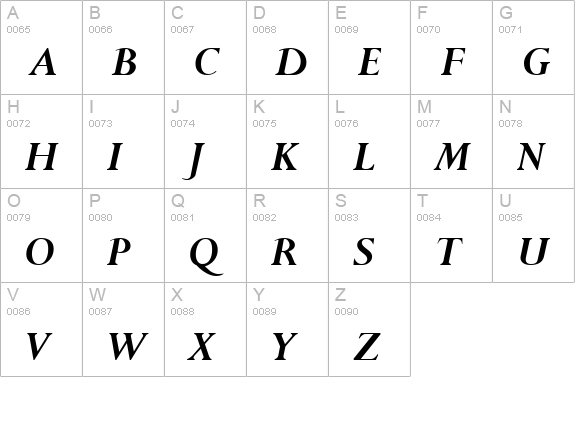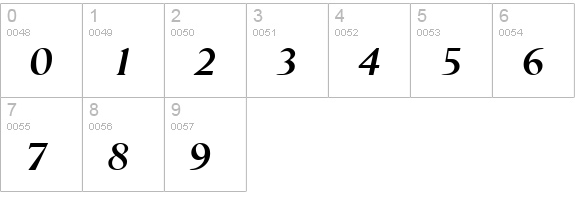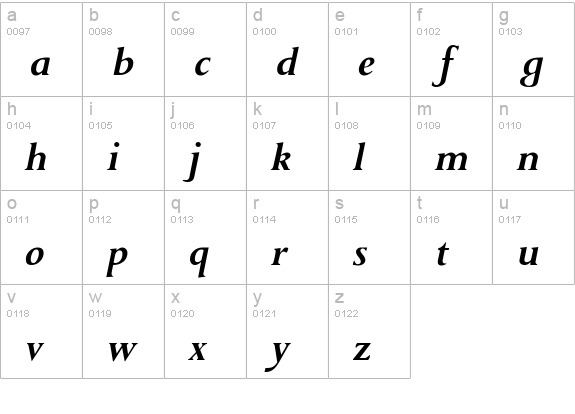
Purloin Bold Italic Font Details
Purloin Bold Italic is a strong, high-contrast, italic variant in the Purloin typeface family \xE2\x80\x94 well suited to headlines, attention-grabbing titles, and strong calls-to-action.
Purloin Bold Italic font exudes a sense of sophistication and modernity, making it the perfect choice for adding a touch of elegance to your designs. The bold and italic characteristics of this font create a striking visual impact, making it ideal for headlines, titles, and other attention-grabbing elements. Its sleek and stylish appearance will elevate any project, whether it be for print or digital use. What sets Purloin Bold Italic font apart is that it is not only visually appealing but also conveniently free to download. You can easily access this exquisite font at FontsMarket.com, where you can enhance your creative endeavors without any cost. Embrace the beauty and versatility of Purloin Bold Italic font and elevate your designs to new heights.